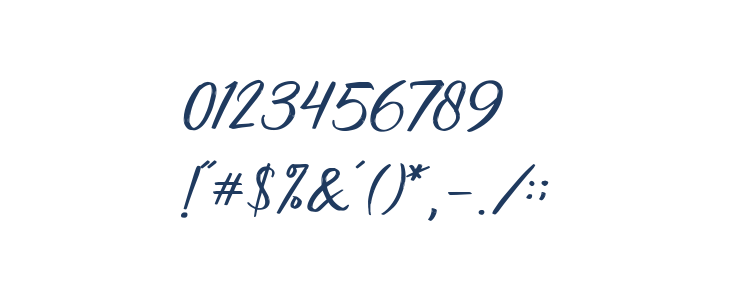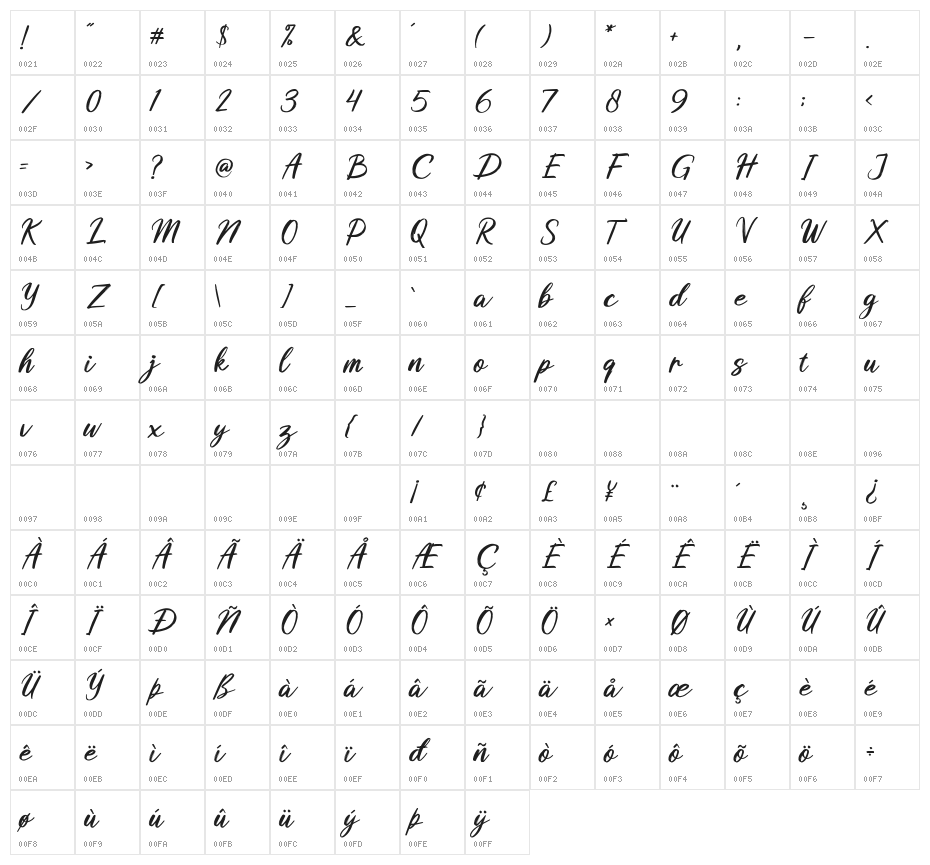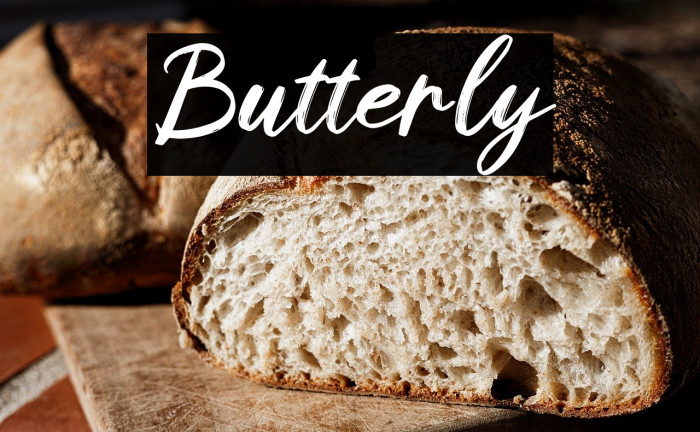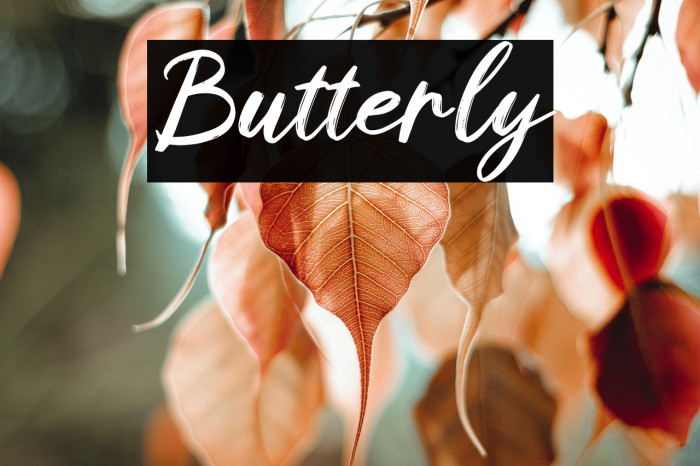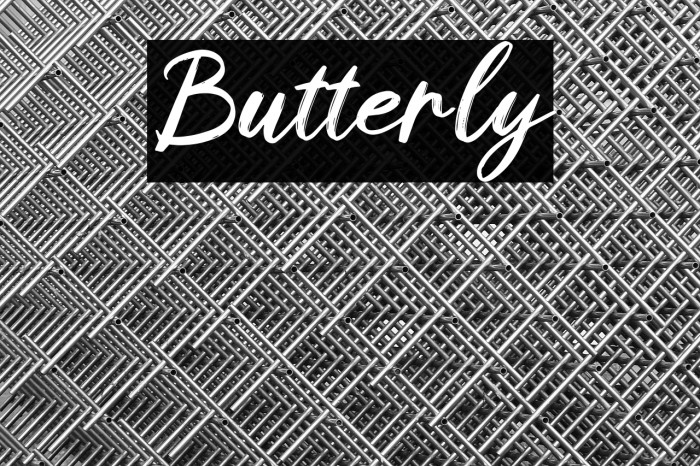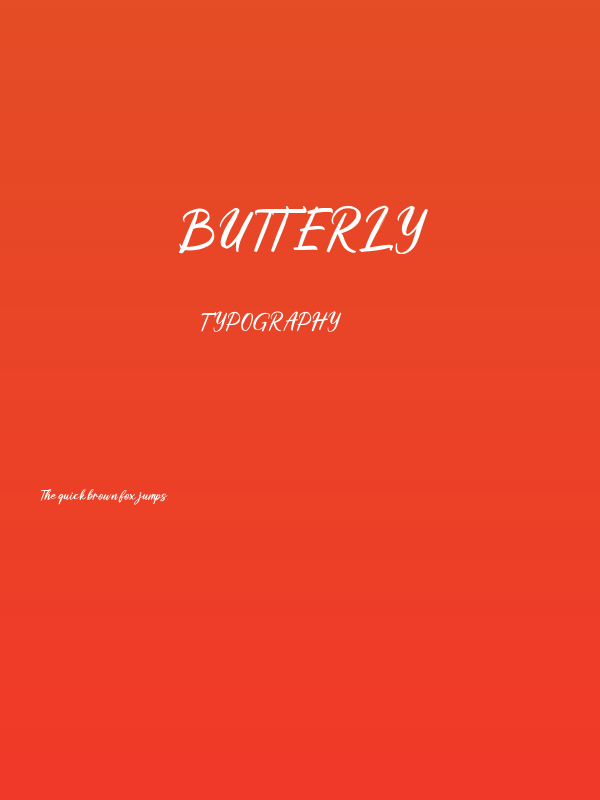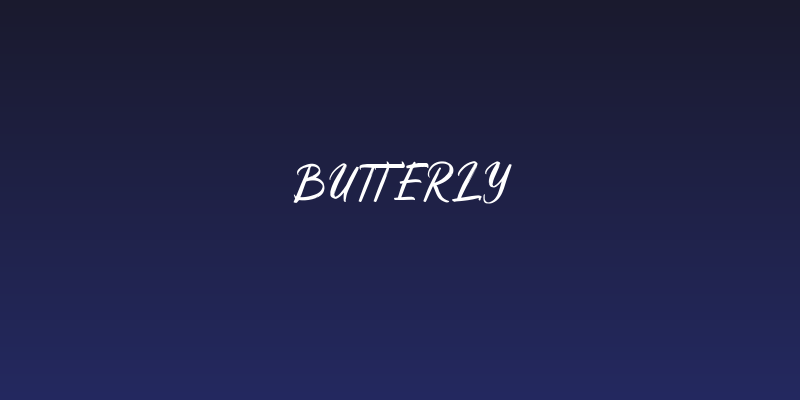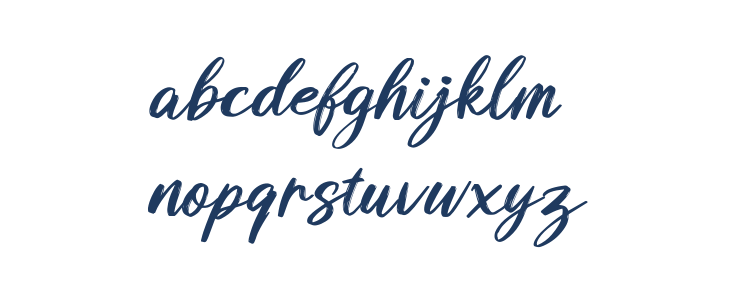
Butterly Font
Butterly Description
This font exudes a dynamic and flowing style, characterized by its cursive and handwritten appearance. The letters are elegantly slanted, giving a sense of motion and fluidity. The uppercase characters maintain a consistent height, while the lowercase letters vary in size, adding a playful touch. The numerals are bold and clear, ensuring readability. Special characters are designed with the same flowing style, integrating seamlessly with the alphabet. The overall look is both artistic and legible, making it suitable for creative and expressive projects.
| Use Case | Logos, Headlines, Invitations |
| Proposed Projects | Ideal for wedding invitations, greeting cards, personal branding, and artistic projects. |